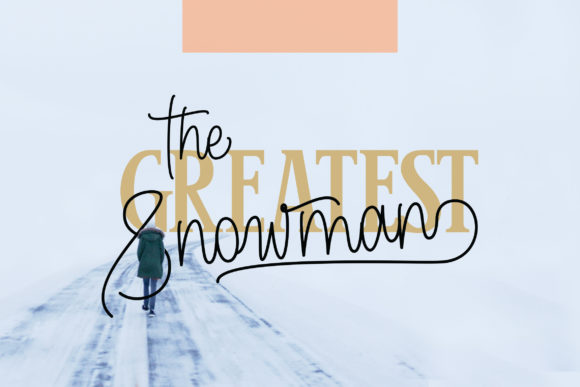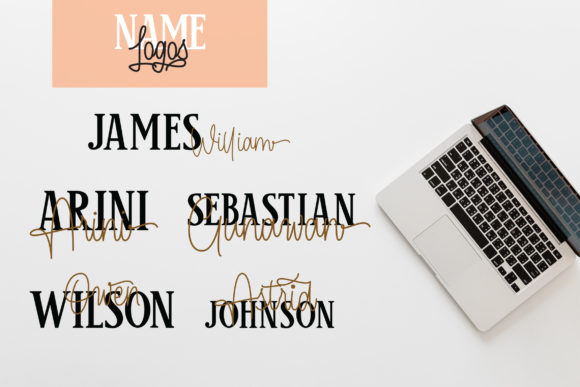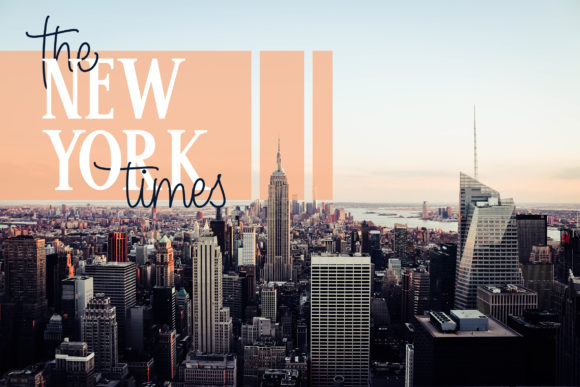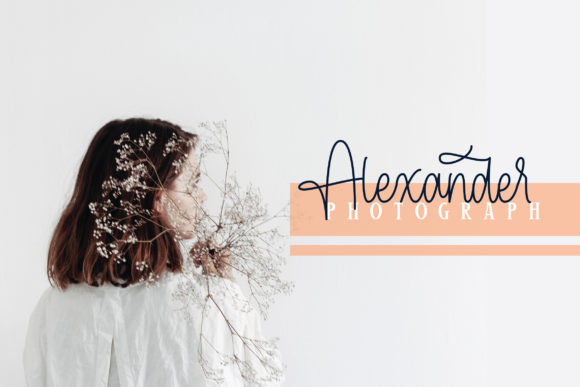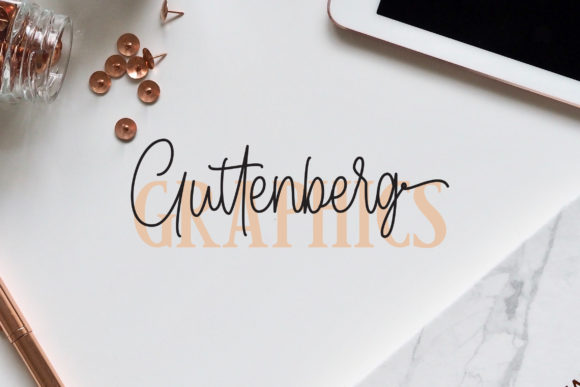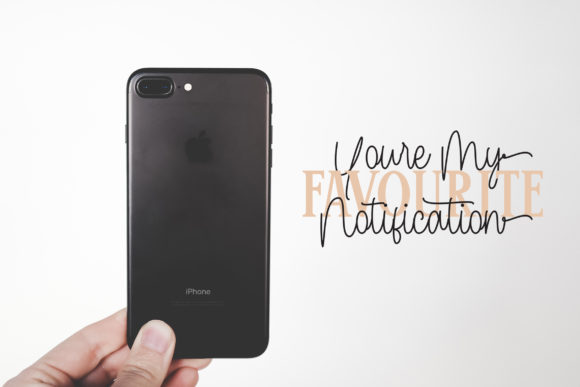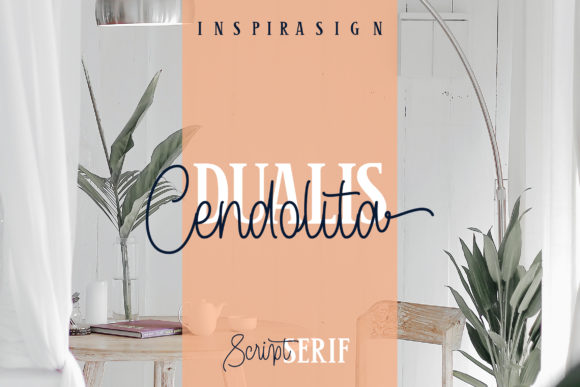
Cendolita Duo Font: Elevate Your Designs with a Fun and Versatile Font Pair
Are you tired of using the same old fonts in your designs? Look no further than the Cendolita Duo Font, a fun and versatile font pair that’s perfect for designers and crafters alike. Inspired by classic posters, this duo includes a striking serif and an elegant script version, making it ideal for a wide range of design projects.
A Brief Overview of Cendolita Duo Font
The Cendolita Duo Font is a carefully crafted font pair that consists of two complementary fonts: a serif font and a script font. The serif font boasts a classic, timeless look that’s perfect for headlines, titles, and other display text. Meanwhile, the script font adds a touch of elegance and sophistication, making it ideal for body text, captions, and other written content.
What Makes Cendolita Duo Font So Special?
So, what sets the Cendolita Duo Font apart from other font pairs on the market? Here are just a few reasons why designers and crafters are falling in love with this versatile font duo:
- Inspired by classic posters: The Cendolita Duo Font draws inspiration from the classic posters of the past, giving it a unique and timeless look that’s sure to turn heads.
- Striking serif and elegant script: The font pair includes a striking serif font and an elegant script font, making it perfect for a wide range of design projects.
- Highly versatile: Whether you’re designing logos, letterheads, posters, apparel, labels, or anything else, the Cendolita Duo Font is the perfect choice.
- Easy to read: Despite its unique and stylish design, the Cendolita Duo Font is highly legible, making it perfect for both display text and body text.
Use Cases for Cendolita Duo Font
The Cendolita Duo Font is an incredibly versatile font pair that can be used for a wide range of design projects, including:
- Logos and branding: Create a lasting impression with a custom logo that incorporates the Cendolita Duo Font.
- Letterheads and stationery: Add a touch of elegance and sophistication to your letterheads and stationery with this beautiful font pair.
- Posters and flyers: Grab attention and make a statement with eye-catching posters and flyers that feature the Cendolita Duo Font.
- Apparel designs: Create stylish and unique apparel designs that showcase your brand’s personality.
- Labels and packaging: Stand out on store shelves with custom labels and packaging that feature the Cendolita Duo Font.
Tips for Using Cendolita Duo Font
To get the most out of the Cendolita Duo Font, here are a few tips to keep in mind:
- Mix and match: Experiment with different combinations of the serif and script fonts to create a unique look that suits your brand.
- Play with sizes: Use different font sizes to create visual interest and hierarchy in your designs.
- Add embellishments: Consider adding embellishments, such as lines or shapes, to enhance the overall look of your design.
In conclusion, the Cendolita Duo Font is a fun and versatile font pair that’s perfect for designers and crafters looking to elevate their designs. With its striking serif and elegant script version, this font duo is ideal for a wide range of design projects, from logos and letterheads to posters and apparel designs. So why wait? Download the Cendolita Duo Font today and start creating stunning designs that showcase your brand’s personality!